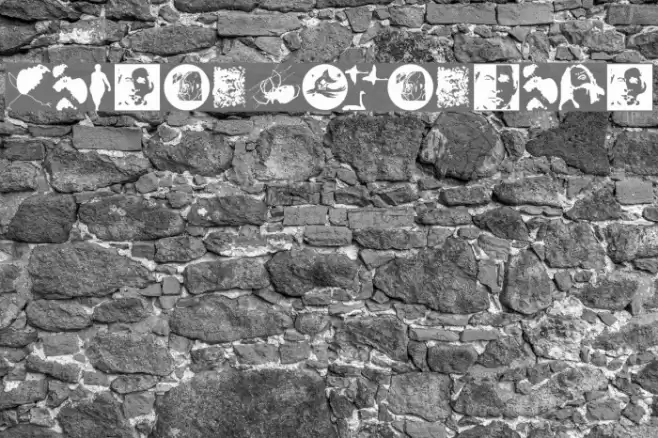
VectorLaborTest Font
VectorLaborTest Description
A highly decorative dingbat font featuring a variety of vector-style illustrations, including human faces, animals, birds, insects, and abstract shapes, rendered in bold black-and-white silhouettes and line art.
| Overall Style | Decorative, Artistic, Modern |
| Use Case | Logos, Posters, Decorative elements, Artistic projects |
| Proposed Projects | Posters, album covers, art projects, creative branding, collage work, zines, and decorative elements in graphic design. |